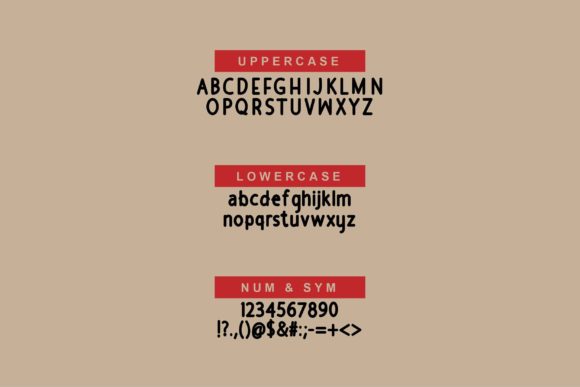
Discovering the Perfect Design Resource: Njarak Mulyo Font
Have you ever been in the midst of a creative project, staring at a blank page, trying to find the right words to bring your vision to life? For many designers, this moment is all too familiar. But what if you had a secret tool that could make your words shine? Enter the Njarak Mulyo Font, a clean and friendly handwritten font that’s about to become your new best friend.
Whether you’re working on a blog post, a social media campaign, or a beautiful book, the Njarak Mulyo Font has the potential to elevate any creation. Its high-quality design and transparent background make it the perfect addition to your fonts’ library, waiting to be downloaded and used on your next project.
Key Features of Njarak Mulyo Font
- High-quality design resource ideal for creative projects, offering a unique and stylish touch.
- Comes with a transparent background, providing flexibility for designers to easily integrate into various design elements.
- Features a bold and modern design, making it perfect for headings, titles, and other prominent text elements.
Honest Review: Njarak Mulyo Font
I recently stumbled upon the Njarak Mulyo Font and was impressed by its clean and modern design. As a designer, I appreciate having high-quality resources like this font to enhance my creative projects.
Here are some things that work well with the Njarak Mulyo Font:
- ✨ High-quality glyphs – The font has a beautiful, crisp design that makes it perfect for body text and headings.
- ✨ Transparent background – This allows for seamless integration with any design background, giving you more flexibility in your creative project.
- ⚠️ Limited language support – While the font supports multiple languages, it’s not comprehensive, which might be a concern for designers working on international projects.
- ⚠️ Not ideal for bold typography – The font’s design is best suited for body text and headings, but it may not be the best choice for bold, attention-grabbing typography.
Overall, the Njarak Mulyo Font is a great addition to any designer’s resource library. While it may have some limitations, its high-quality design and free download make it a valuable asset for creative projects.
Design Resource Essentials
The Njarak Mulyo Font is a versatile design resource suitable for various creative projects. Its high quality and transparent background make it an ideal choice for designers.
Tips for Getting the Most Out of Njarak Mulyo Font
To maximize the impact of your design, use the Njarak Mulyo Font in combination with other design elements. Experiment with different font sizes, colors, and arrangements to achieve a unique look.
The Njarak Mulyo Font is ideal for various creative projects, including:
- Social media graphics and ads
- Infographics and presentations
Use Oswald when you need a font that’s easy to read and works well on various devices. It’s a great choice for digital designs, such as websites and mobile apps.
Oswald compares to Njarak Mulyo Font in its modern and sleek appearance. However, Oswald has a more geometric feel and is often used in digital designs, while Njarak Mulyo Font has a more hand-drawn look and is suitable for print designs.
Does the Njarak Mulyo Font have a transparent background?
Yes, the Njarak Mulyo Font features a transparent background, making it easy to integrate into your design projects. This allows for seamless layering and blending with other design elements, giving you more creative control over your work.